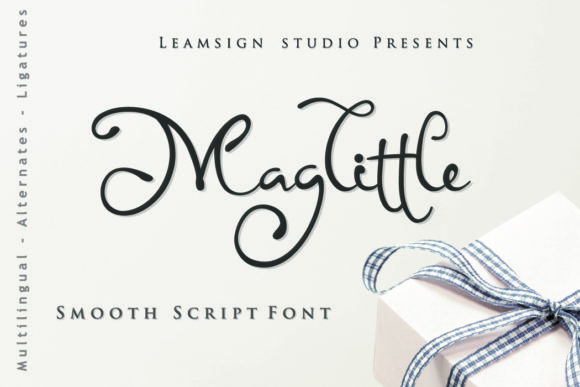
Behold the Maglittle Font, a creation of leamsign, a script font that evokes a sense of playful elegance with its smooth curves and dynamic style. Dive into a world of captivating designs, where the Maglittle Font dances across your screen, transforming ordinary text into a visual feast.
Unleash your creativity and let the Maglittle Font ignite your imagination. Its enchanting aura is perfect for branding projects, adding a touch of whimsy to your logos and making your brand stand out from the crowd. Create eye-catching headers that command attention and leave a lasting impression on your audience.
With the Maglittle Font, your quotes take on a new life, becoming more than just words on a page. They become art, infused with emotion and personality. Share your thoughts and ideas in a way that captivates your readers, leaving them spellbound by your eloquence.
Product packaging transforms into an extraordinary canvas when adorned with the Maglittle Font. Its playful curves add a unique charm to your products, making them irresistible to customers. Elevate your wedding invitations and cards with its enchanting touch, creating a sense of timeless romance and elegance.
The Maglittle Font is a versatile masterpiece that complements a wide range of design projects, from product packaging to wedding invites. Its versatility knows no bounds, making it a must-have for designers seeking a font that effortlessly enhances their creations.